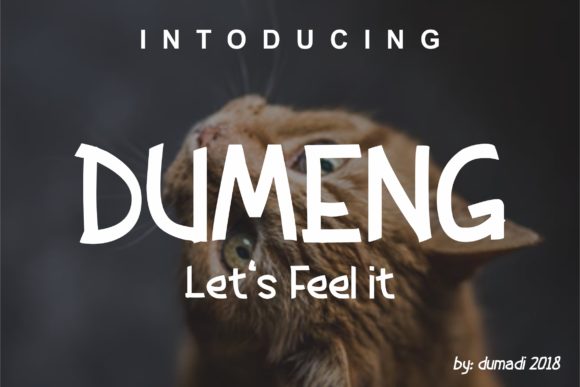
Dumeng Font
Escape the mundane with Dumeng, a captivating display font that breathes life into your designs. Its relaxed demeanor evokes a sense of tranquility, inviting you to unwind and unleash your imagination. With Dumeng as your creative ally, crafting eye-catching Youtube thumbnail titles, thought-provoking posters, and memorable t-shirt designs becomes effortless.
Dumeng's versatility knows no bounds, lending its charm to a myriad of projects. Let its graceful curves adorn your website, giving visitors a warm and welcoming experience. Infuse your social media posts with a touch of individuality, capturing the attention of your followers with every captivating character.
Embrace Dumeng and watch your designs transform into masterpieces. Its modern aesthetic adds a touch of sophistication, while its playful spirit invites exploration and creativity. Let this extraordinary font become your muse, guiding you to create designs that resonate with your audience and leave a lasting impression.
Step into a world of limitless possibilities with Dumeng. Its user-friendly nature makes it accessible to all, empowering you to express yourself freely through the art of typography. Join the creative revolution and let Dumeng ignite your imagination today.